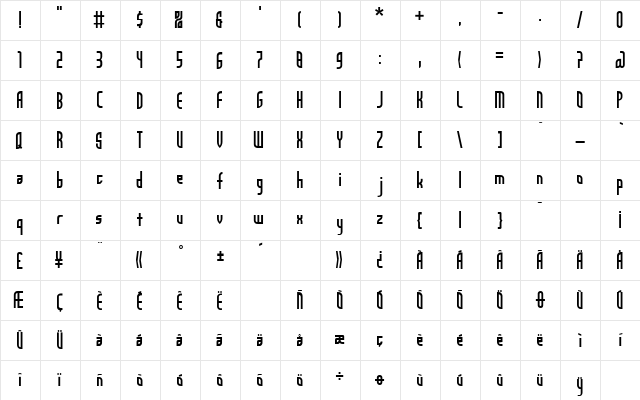
Angela Sans Regular
Design Context for Angela Sans Typeface
Angela Sans offers clean, dependable letterforms without strong stylistic allegiance, making it a practical choice for designers who need flexibility.
Pro Tip: Use Angela Sans in both headline and body roles to test its range before committing to a single application.